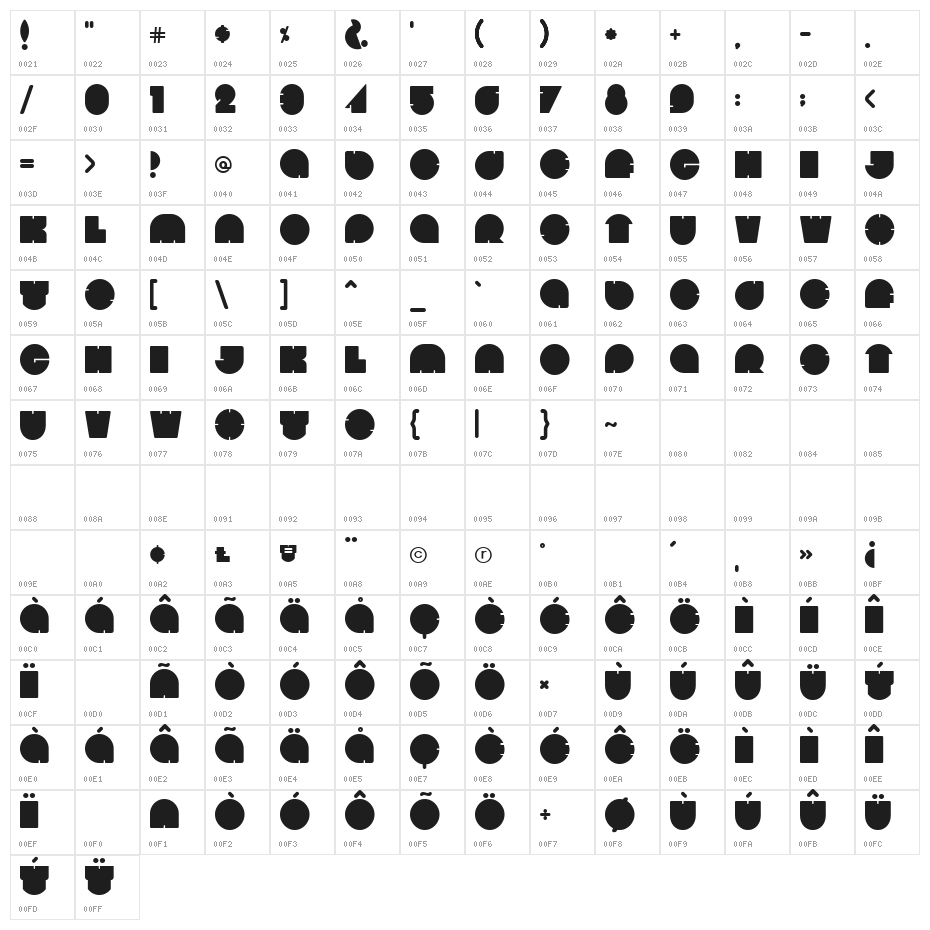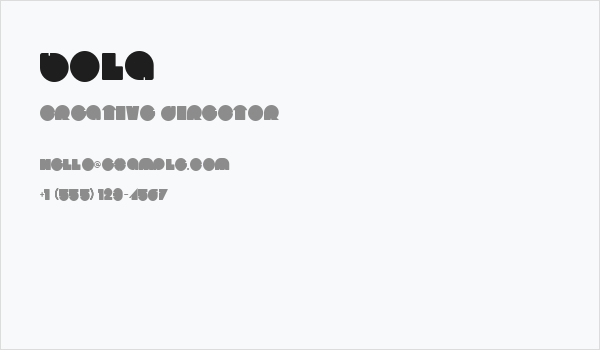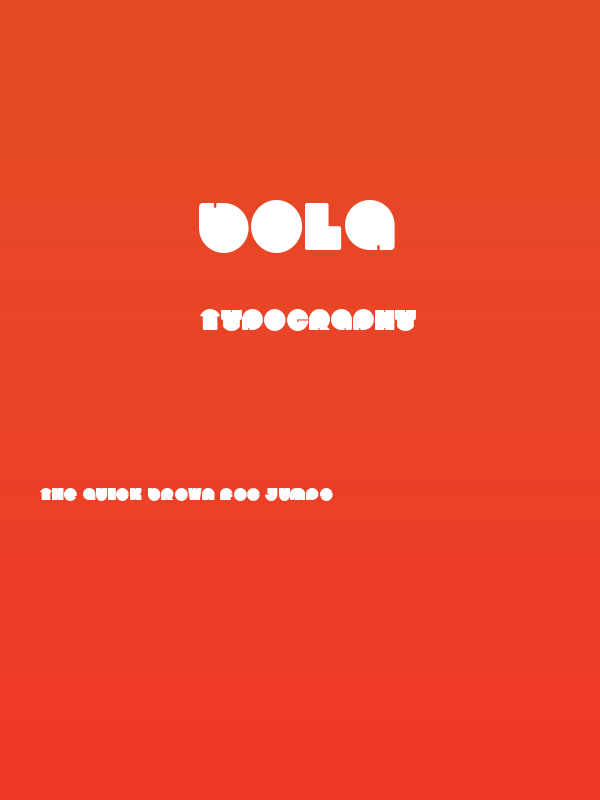
Bola Font
Bola Description
This font features a bold and geometric style with a distinctively rounded and blocky appearance. Each character is crafted with a consistent thickness, creating a uniform and cohesive look. The letters are designed with minimal contrast, emphasizing a modern and playful aesthetic. The font's unique structure is characterized by its circular forms and solid shapes, making it highly suitable for attention-grabbing headlines and creative projects. Its boldness and simplicity lend it a strong visual impact, while the rounded edges soften the overall feel, balancing strength with approachability.
| Proposed Projects | Ideal for branding, poster design, and any project requiring a modern, playful touch. |